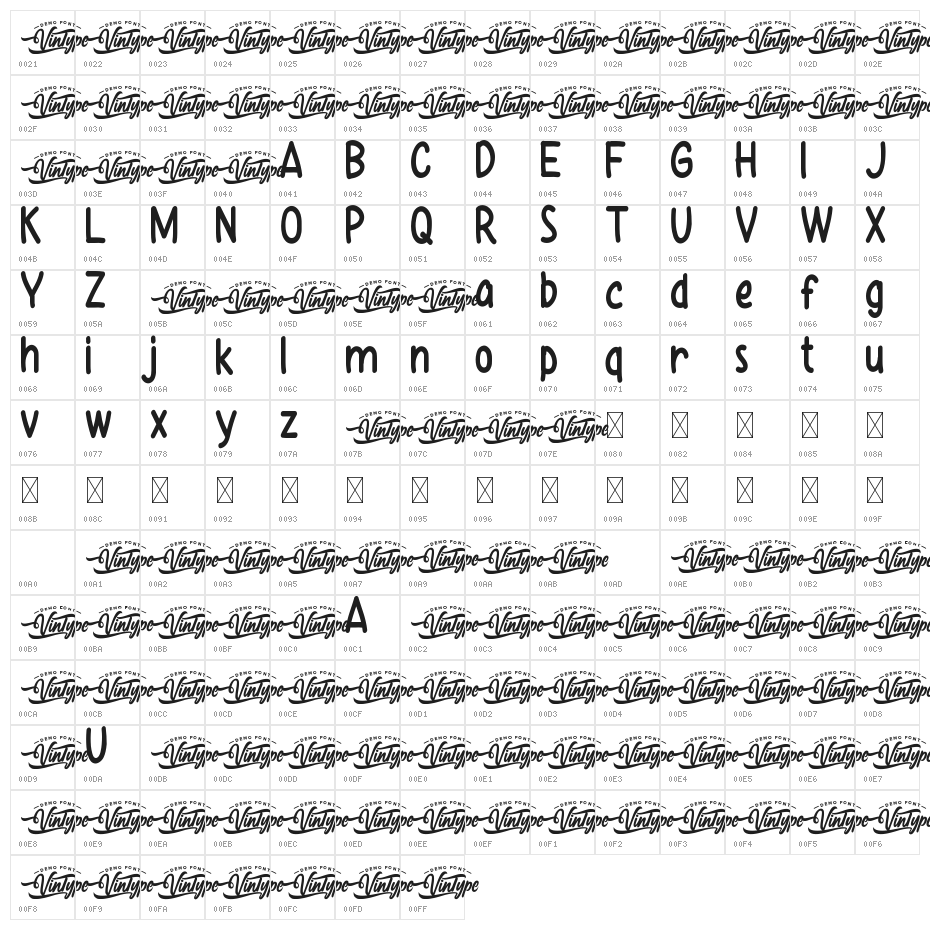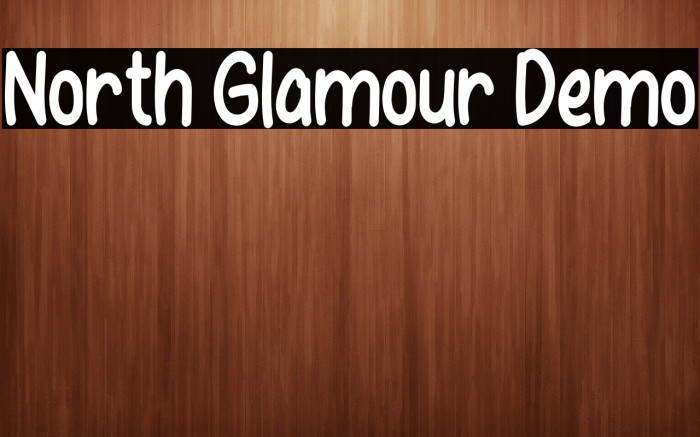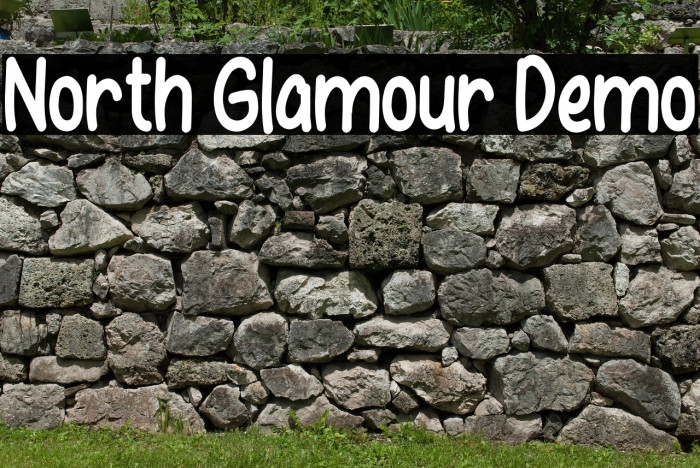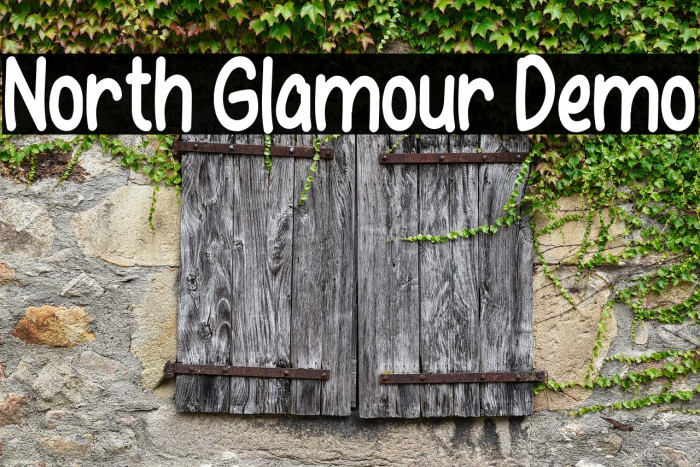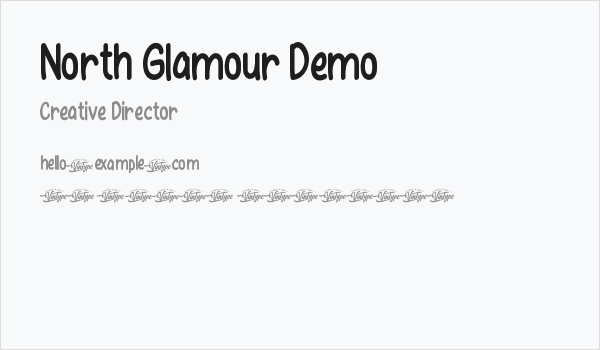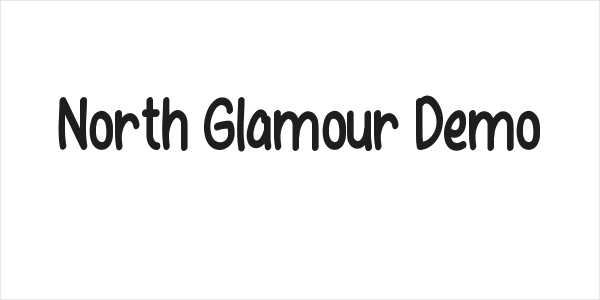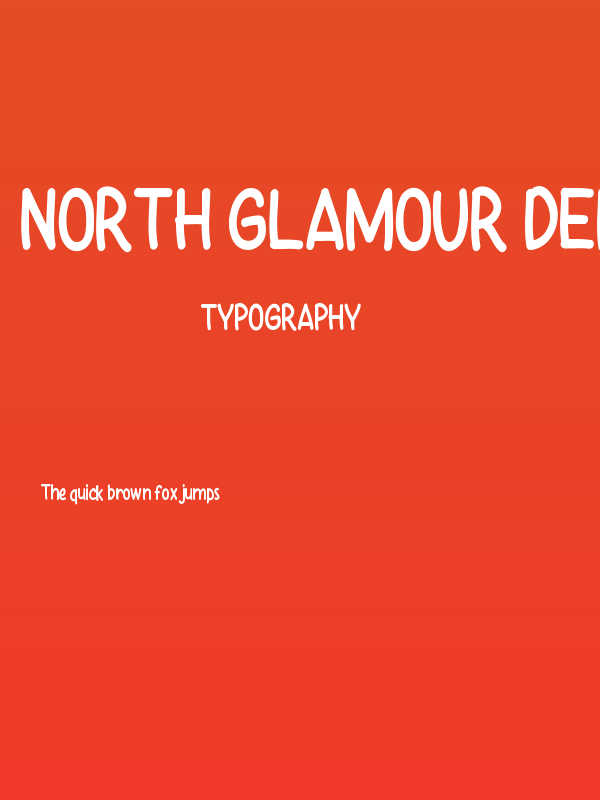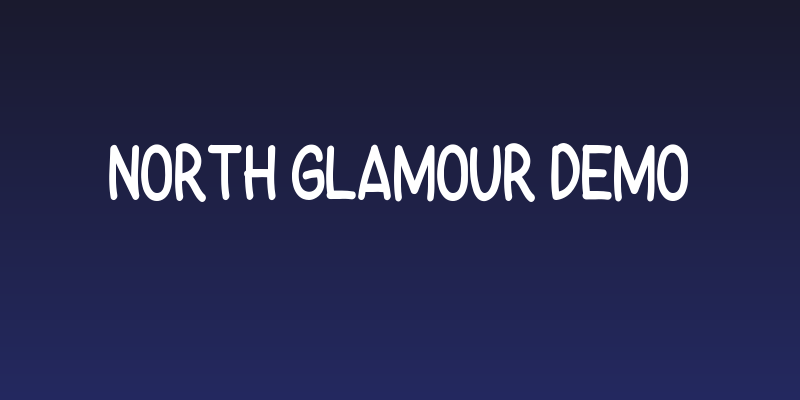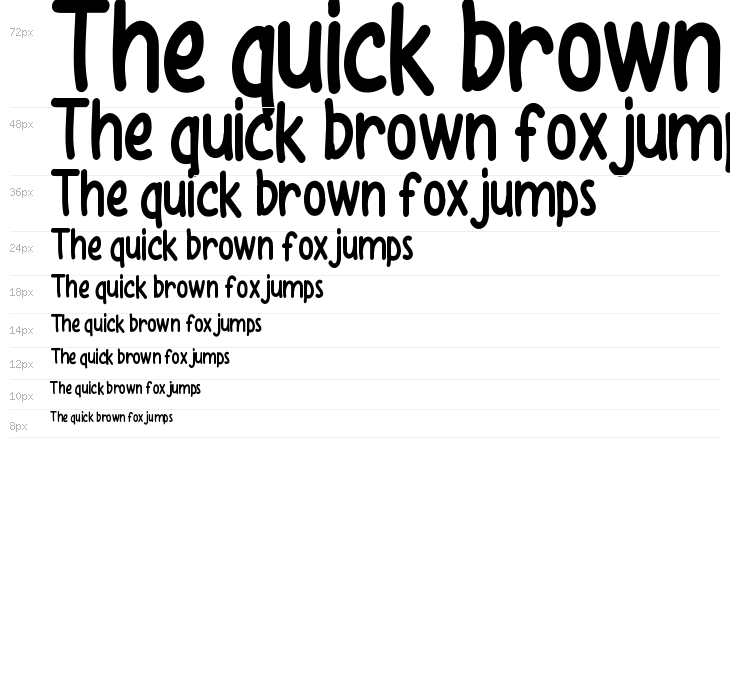
North Glamour Demo Font
North Glamour Demo Description
This font exhibits a playful and casual style, characterized by its rounded and slightly irregular letterforms. The uppercase and lowercase letters maintain a consistent height, contributing to a cohesive appearance. The strokes are bold and uniform, giving the font a strong presence while retaining a friendly and approachable vibe. The overall design is reminiscent of hand-drawn lettering, making it suitable for projects that require a personal touch. The spacing between characters is balanced, ensuring readability without compromising its unique style.
| Proposed Projects | Ideal for children's books, playful branding, casual invitations, and creative posters. |